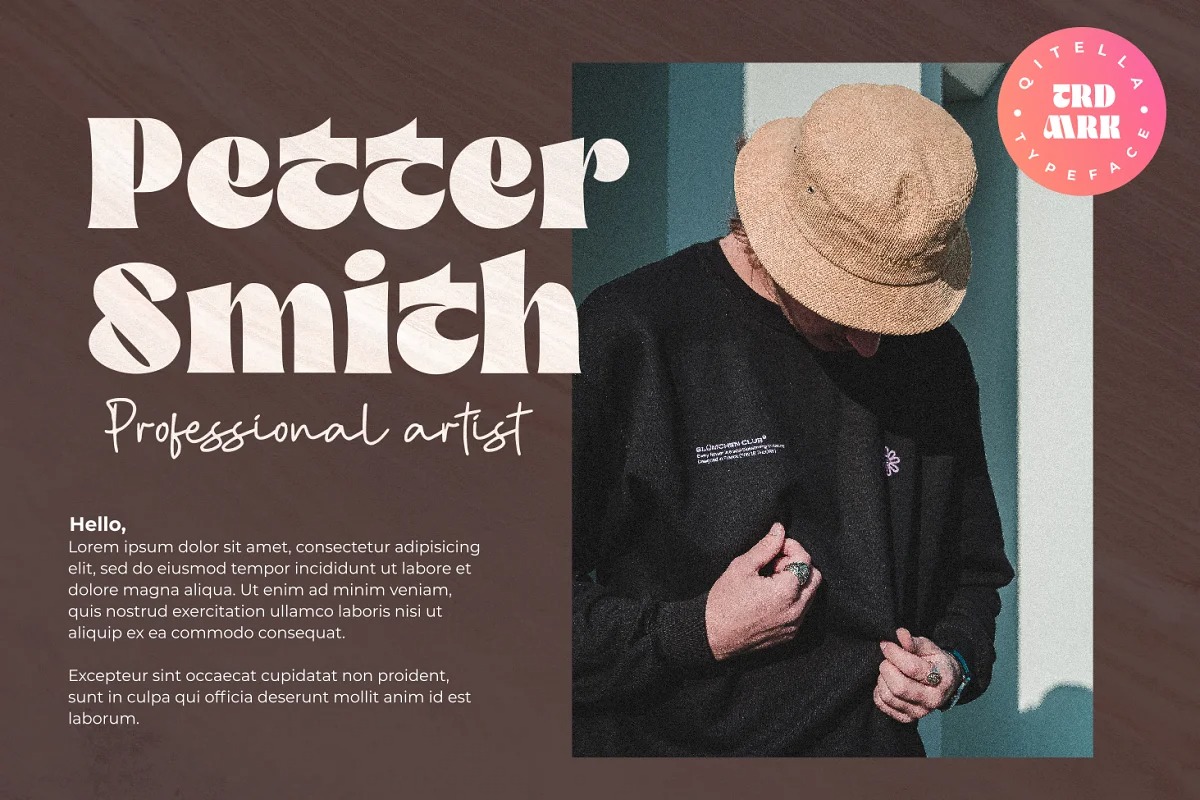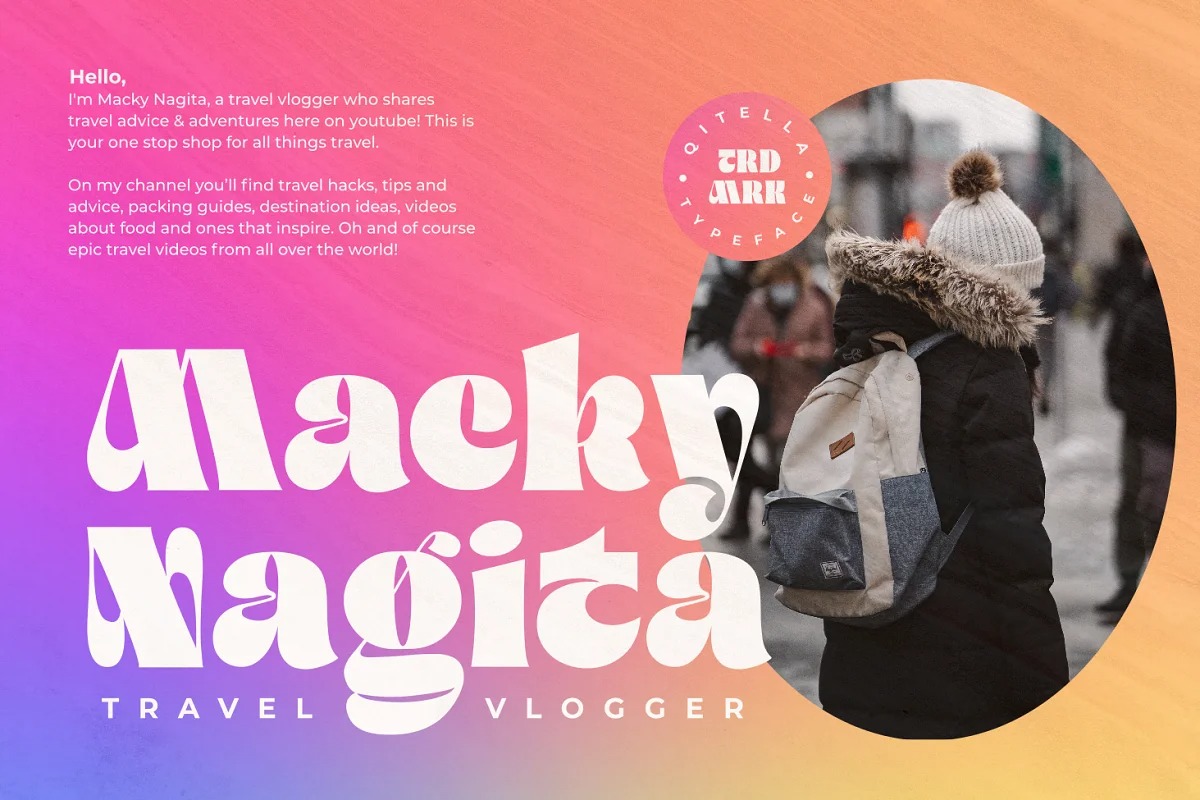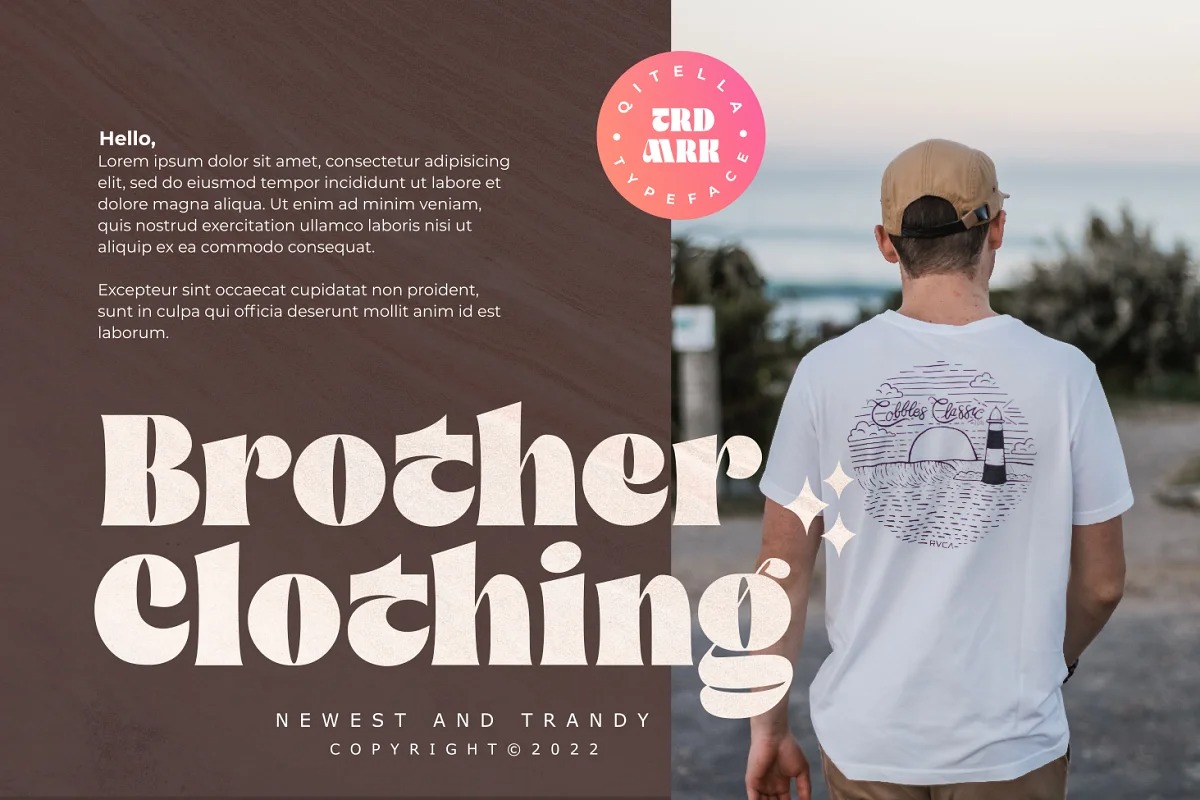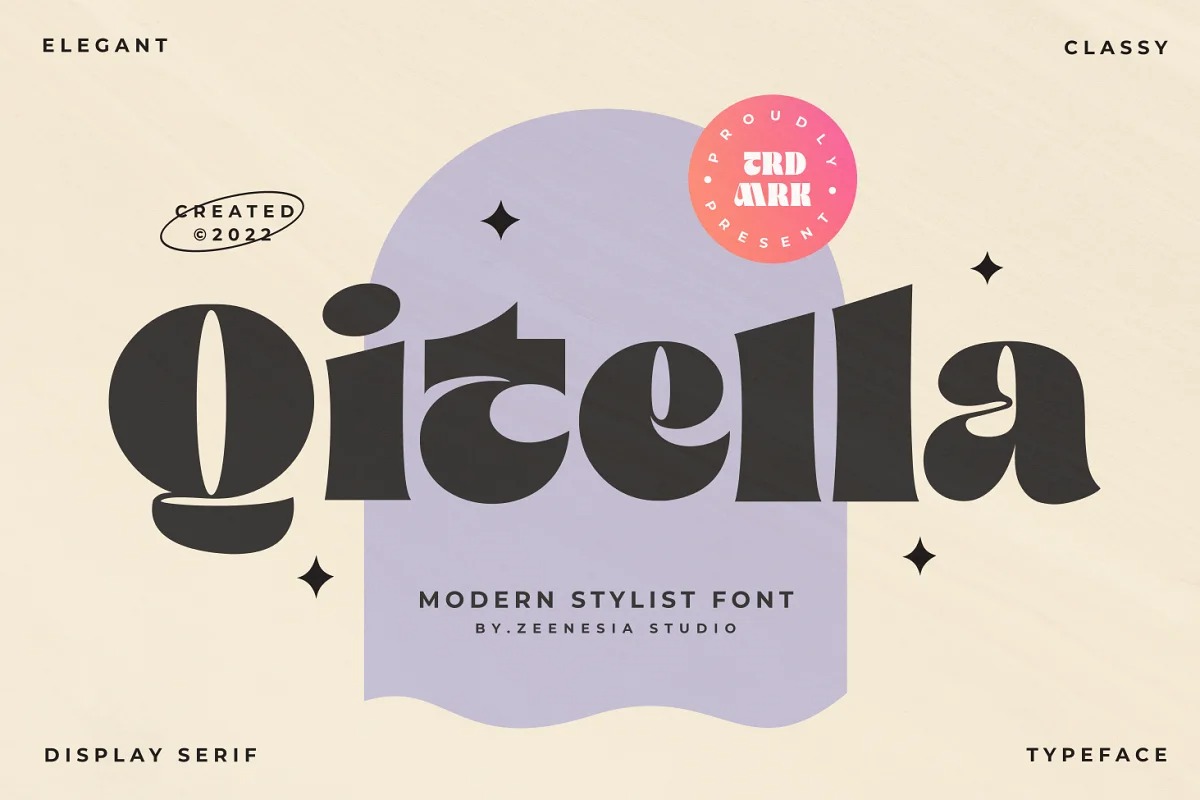
Qitella Font
Qitella Serif Font
This is a new bold serif typeface inspired by the work of charming lettering artists with a combination of Old Style Display Bold. modern and classic serif font with a clear and bold look. It’s a very versatile font that works great in large.
Qitella was built with openType features, stylistic Alternate and Ligature makes your project will be awesome!! Perfect for editorial projects, Logo design, web font, clothing branding, product packaging, magazine headers, or simply as a stylish text overlay to any background image.